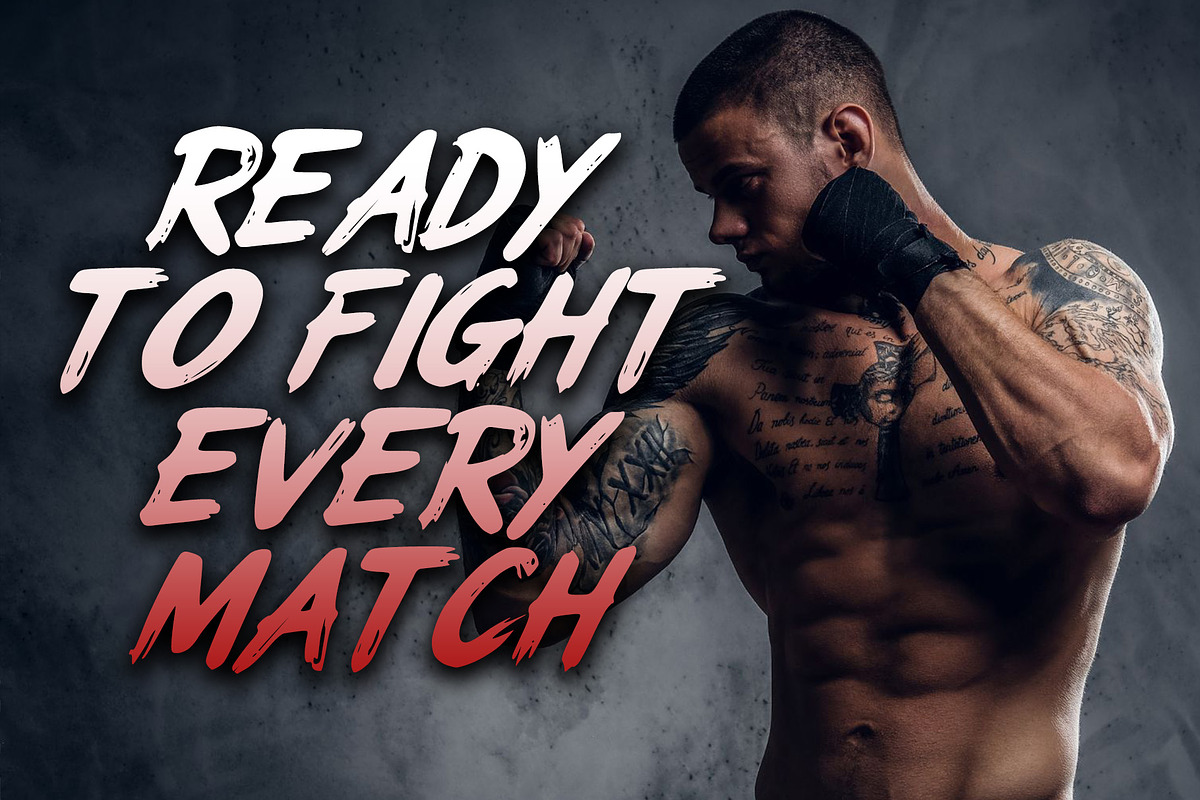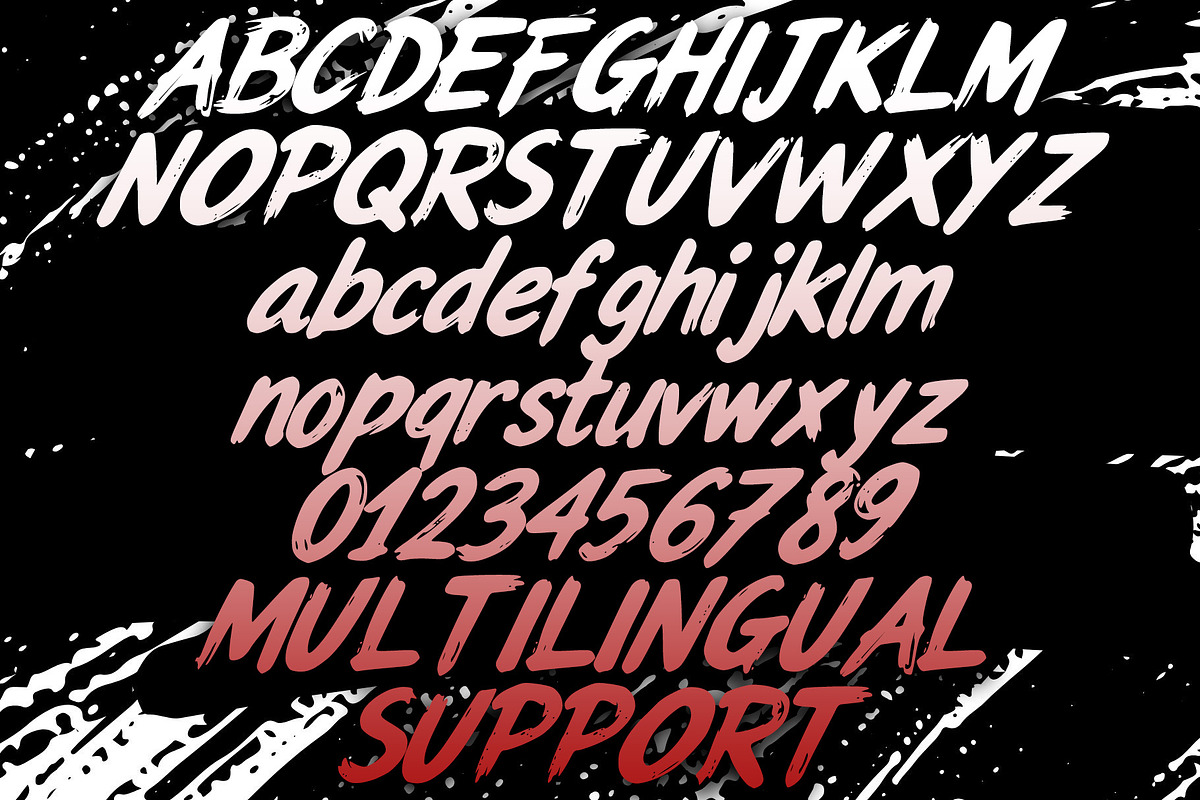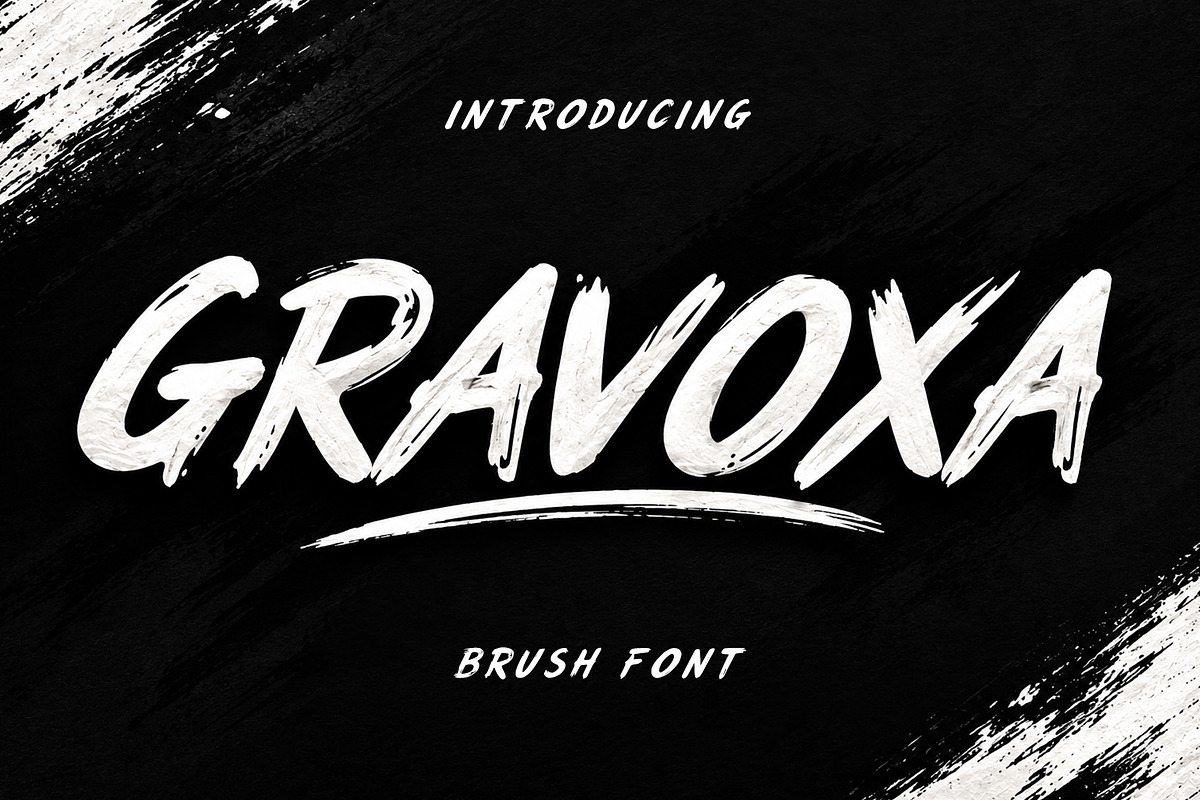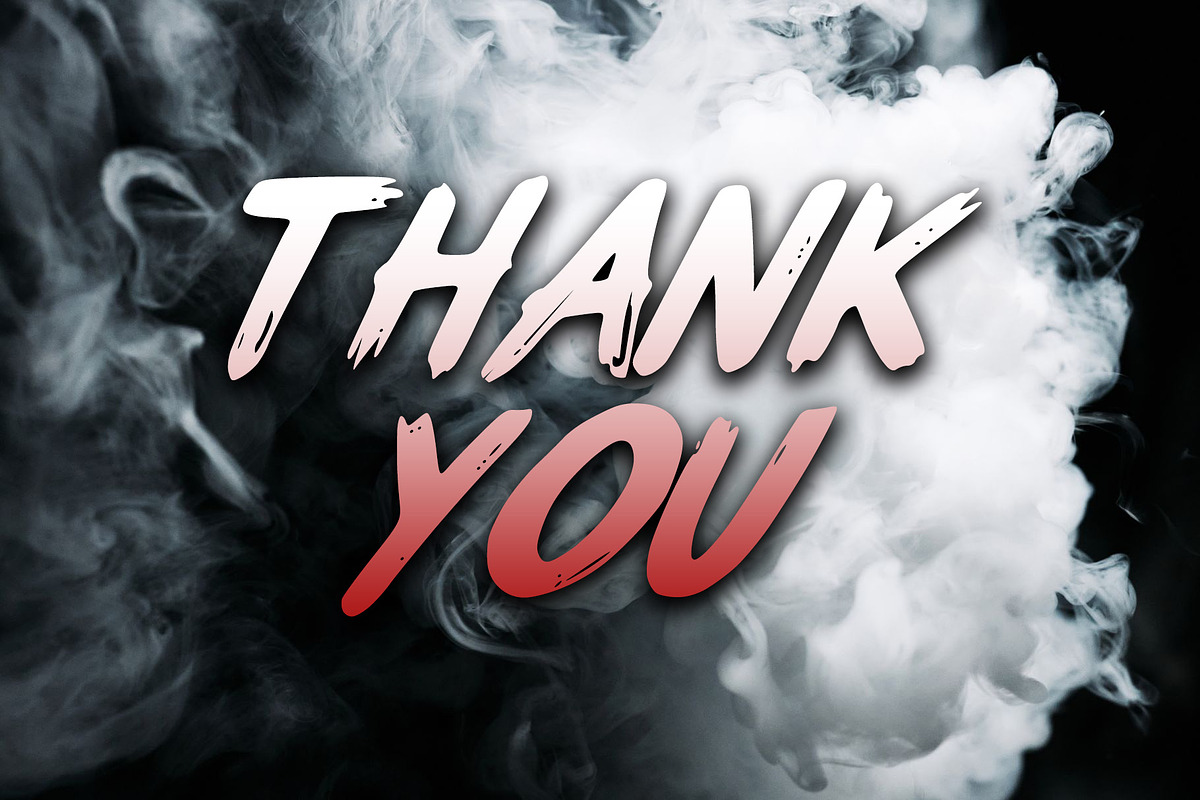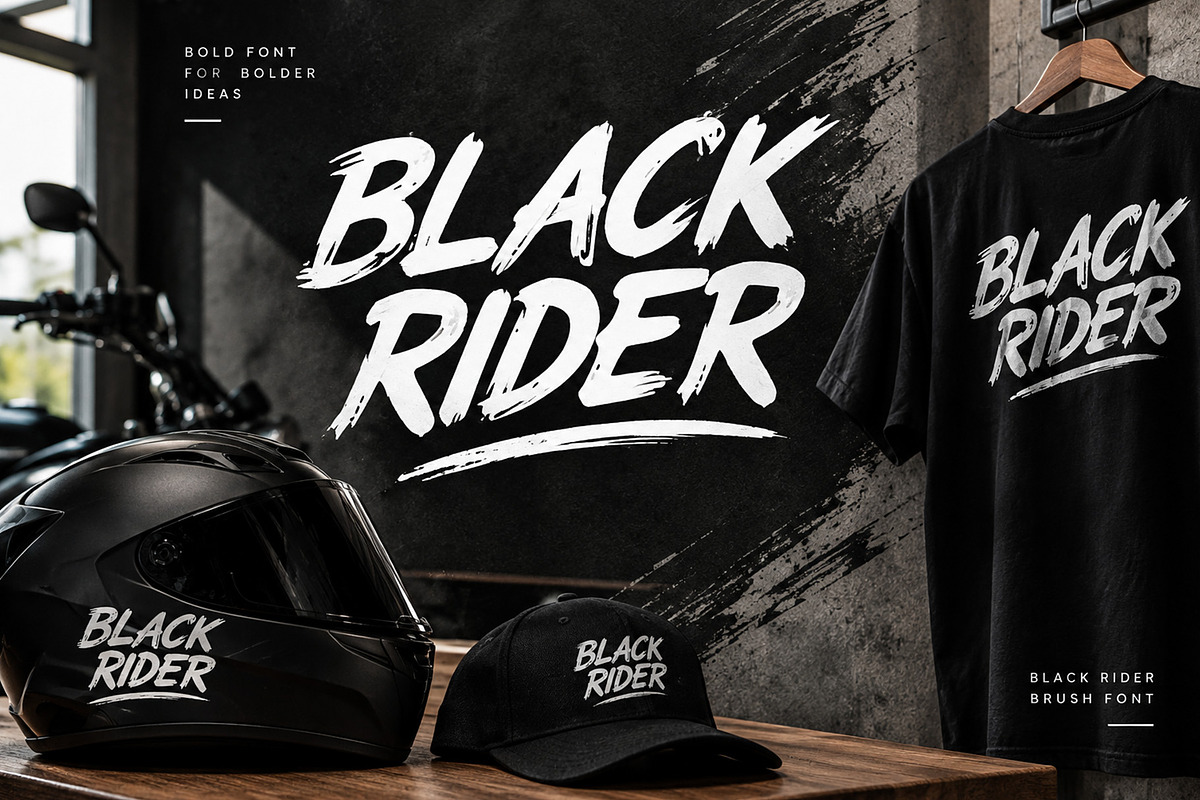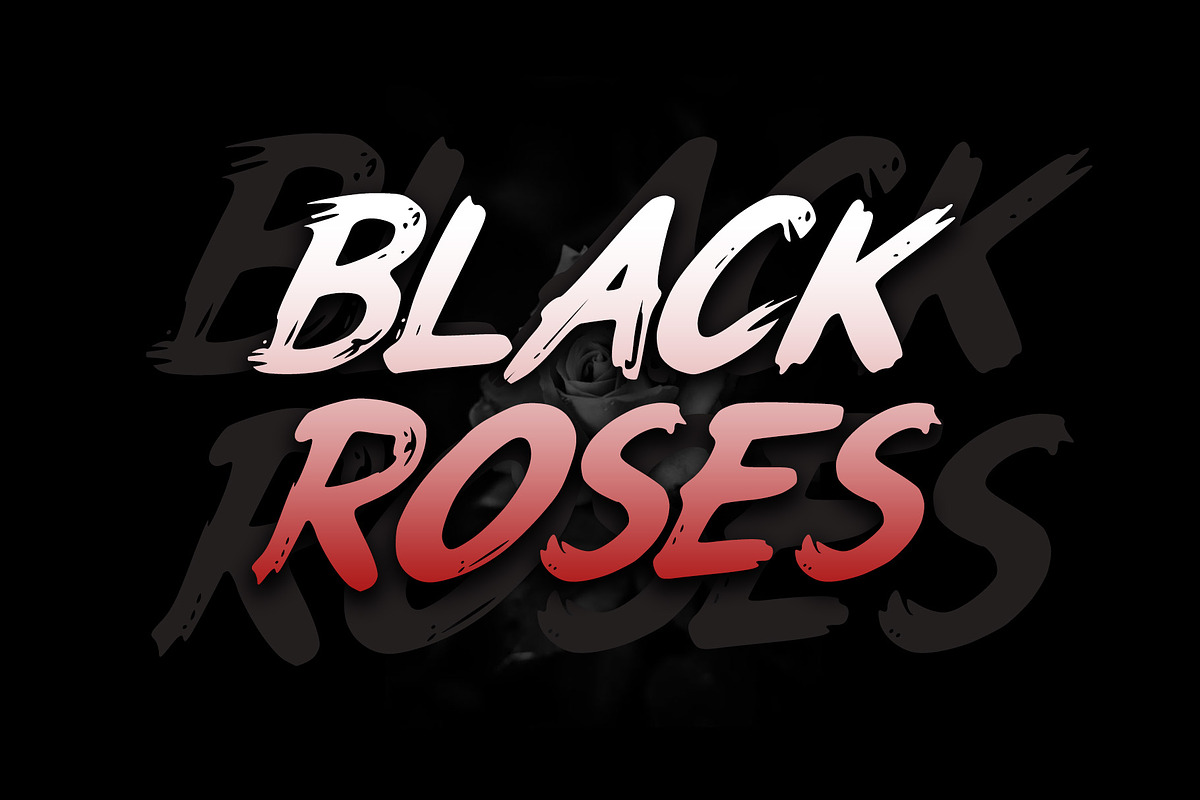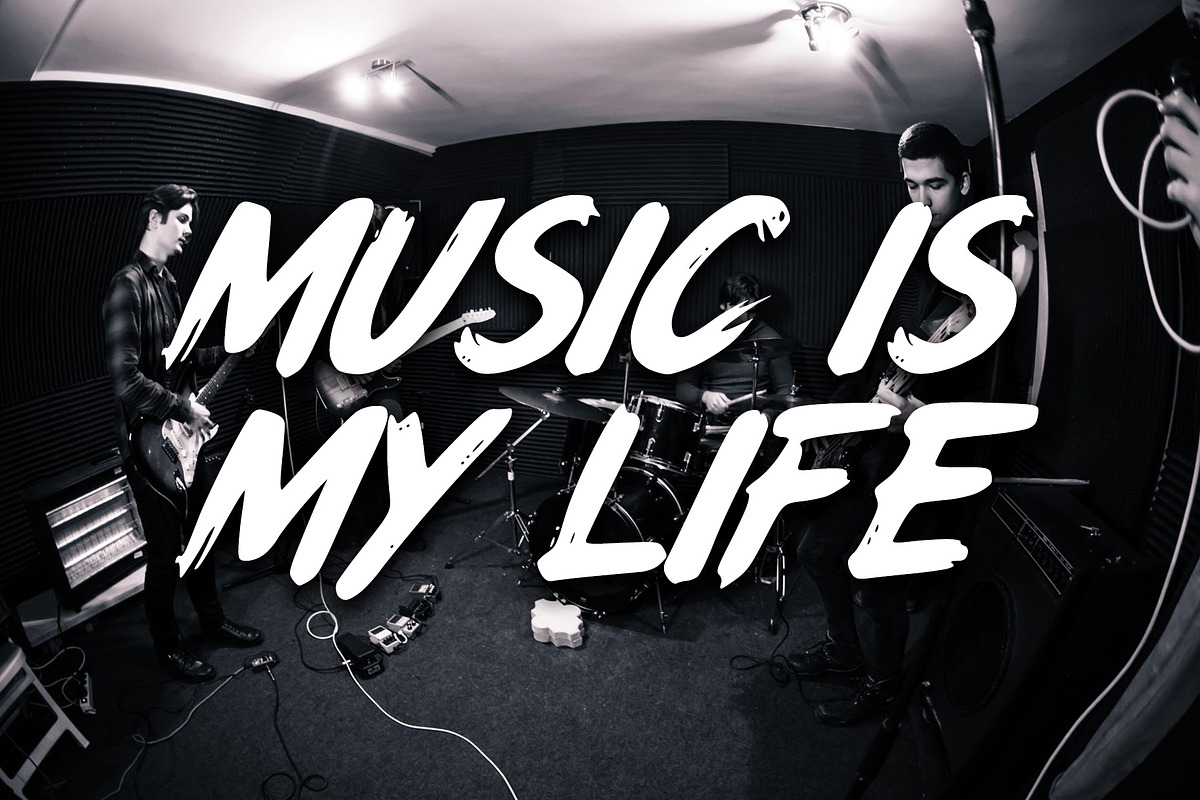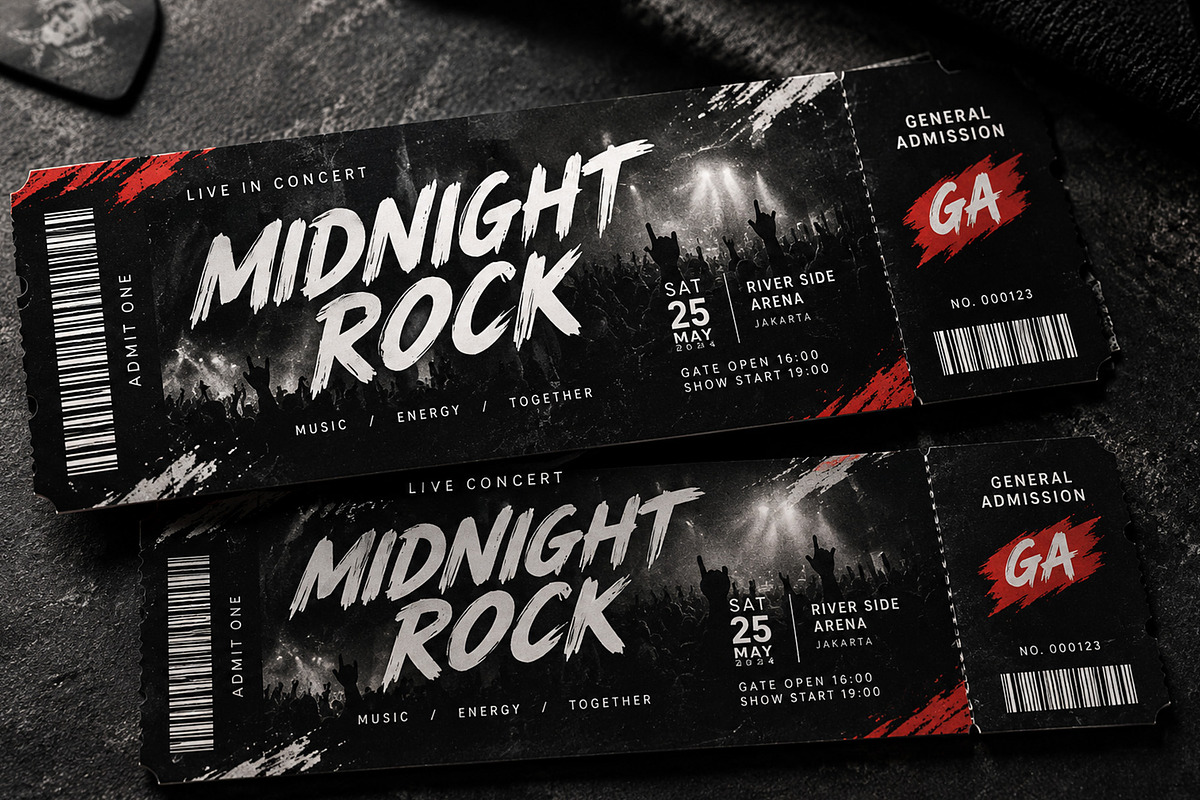
GRAVOXA
GRAVOXA is a bold and expressive brush font designed to bring a raw, energetic, and handcrafted feel to your designs. Its dynamic brush strokes, rough edges, and natural imperfections create an authentic handmade aesthetic with a strong visual impact.
Perfect for designs that need a powerful and rebellious character, GRAVOXA works beautifully for logos, branding, posters, album covers, merchandise, apparel, packaging, streetwear designs, sports graphics, social media artwork, headlines, and advertising.
Whether you're creating a bold brand identity or an eye-catching poster, GRAVOXA adds an energetic brush-painted personality to every project.
Bold & expressive brush lettering
Rough and authentic hand-painted appearance
Dynamic strokes and natural imperfections
Suitable for display and headline designs
Great for branding and logo projects
Perfect for posters, apparel & merchandise
Works well for rock, streetwear, sports & creative projects
Includes uppercase, lowercase, numbers & punctuation
GRAVOXA is made for designers who want their typography to stand out.